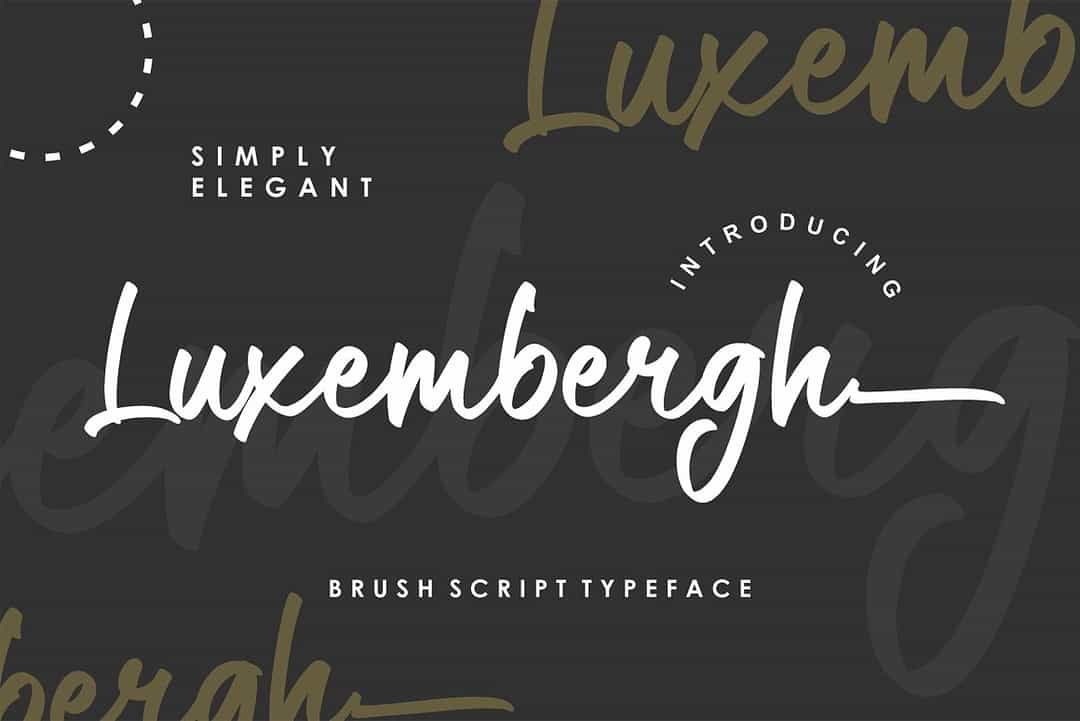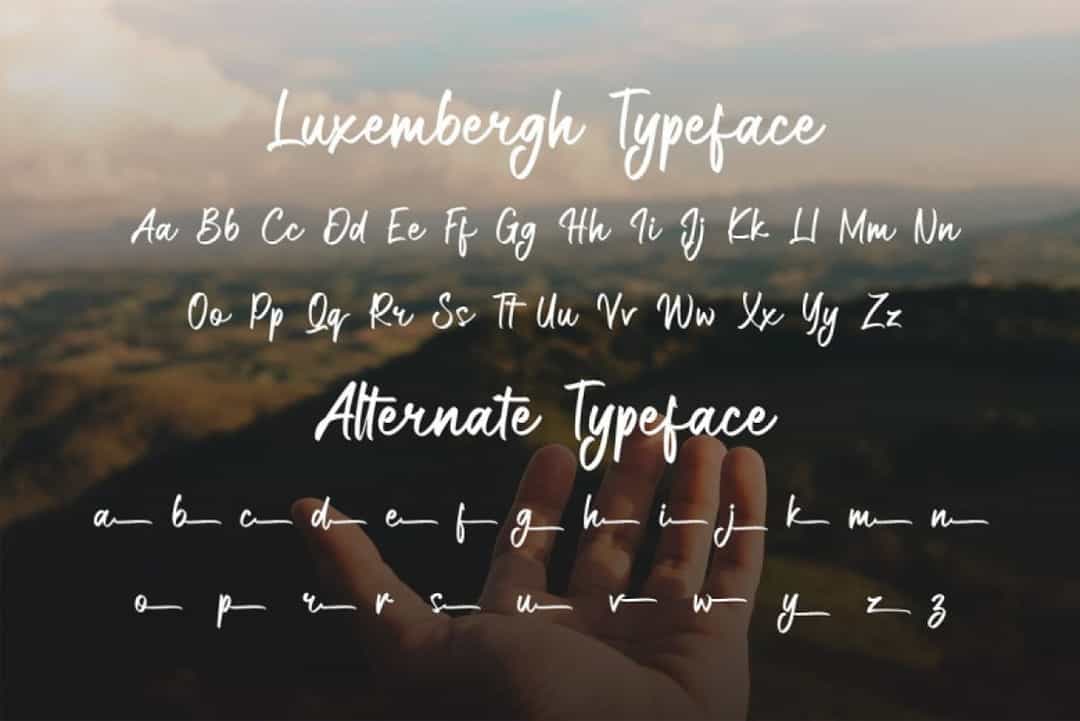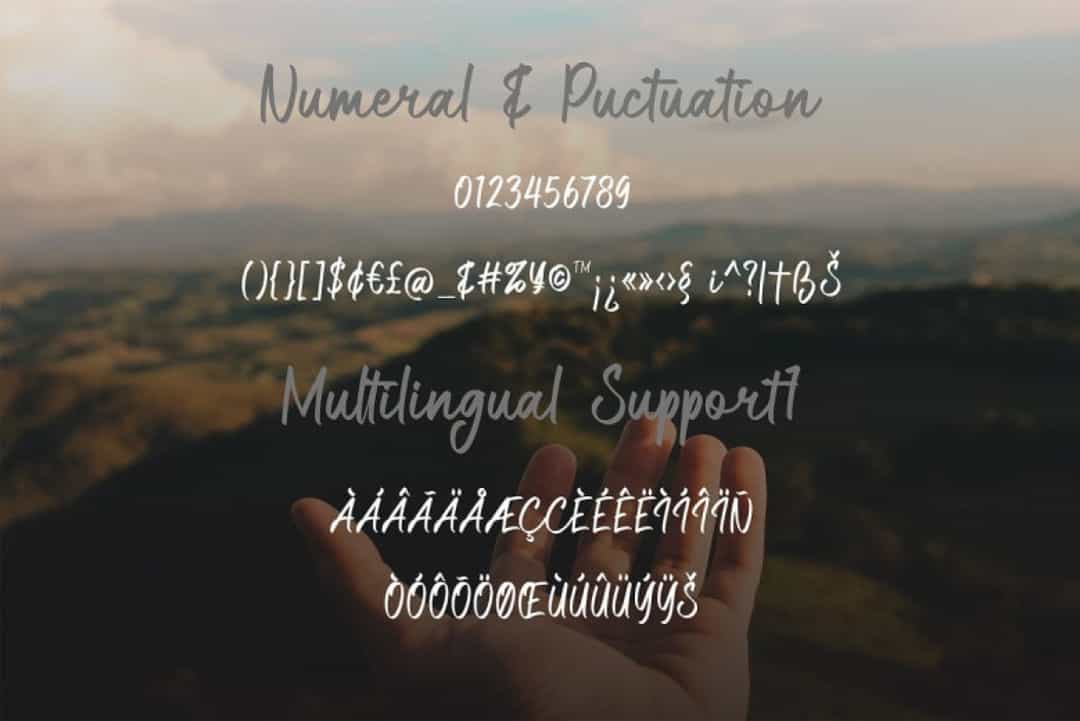
Luxembergh is a bold handwritten font featuring intricate brush texture. The fine brush texture gives a Kattalyna appearance that appears natural, elegant, and contemporary – ideal for branding, logos wedding designs, social media posts as well as packaging products, advertisements design labels photographs watermark invitations stationery or any project which requires professional handwriting skills. Luxembergh can also be found used as watermark invitations stationery and all projects requiring handwriting skills of a professional handwriter.